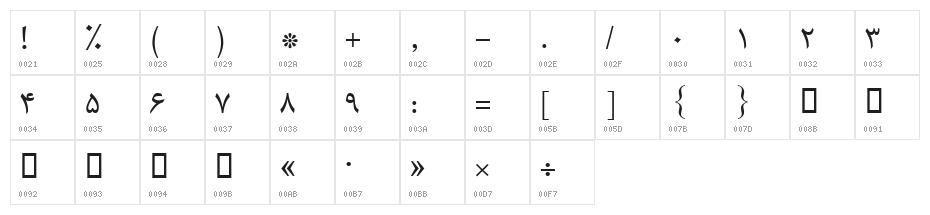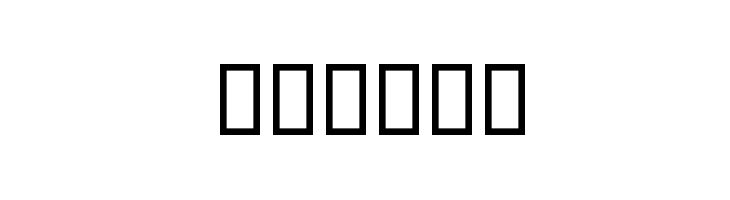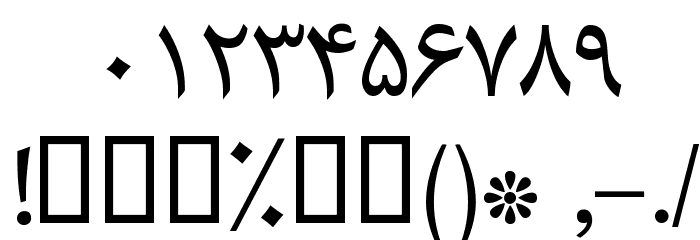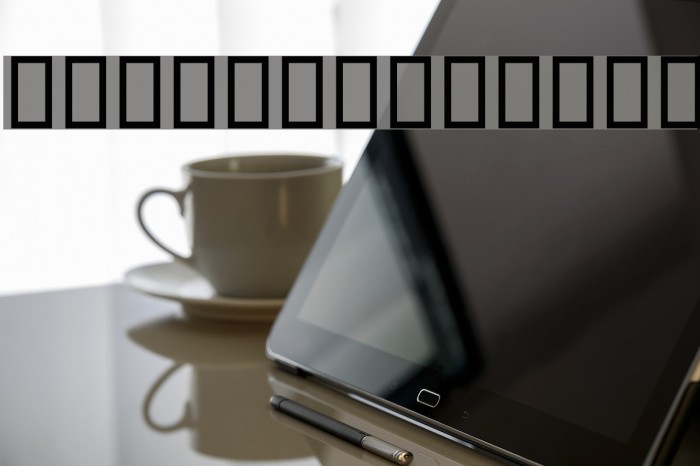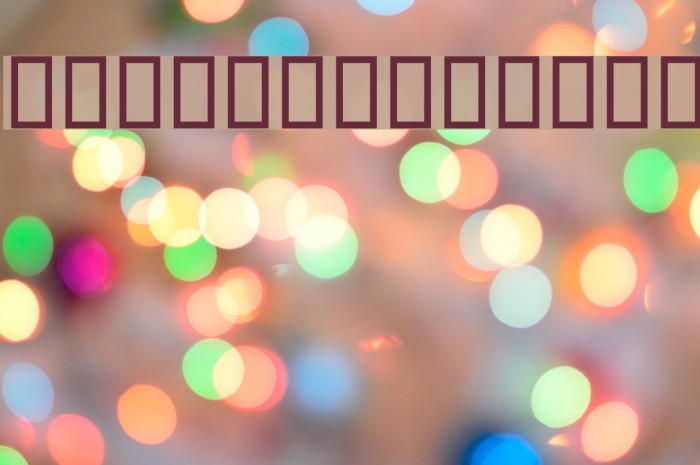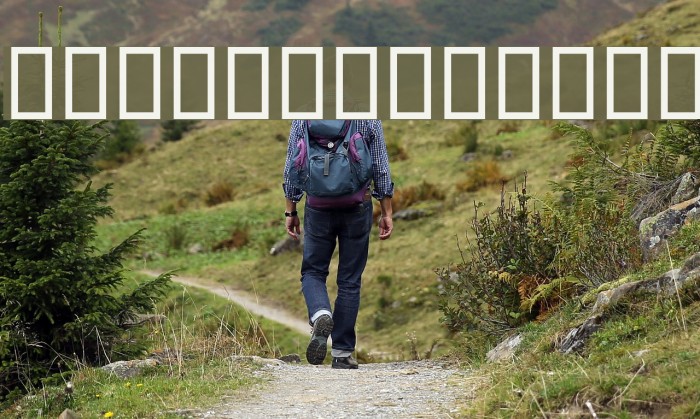
Mitraa Font
Mitraa Description
This font features a distinctive and artistic style, characterized by its elegant curves and unique character shapes. The numbers and special characters exhibit a playful yet sophisticated design, making it suitable for creative projects. The font's overall appearance is both modern and decorative, with a hint of traditional influences. Its unique style makes it stand out, offering a fresh take on classic typography.
| Overall Style | Modern, Decorative |
| Use Case | Logos, Headlines, Artistic publications |
| Proposed Projects | Ideal for creative projects such as branding, invitations, posters, and artistic publications. |